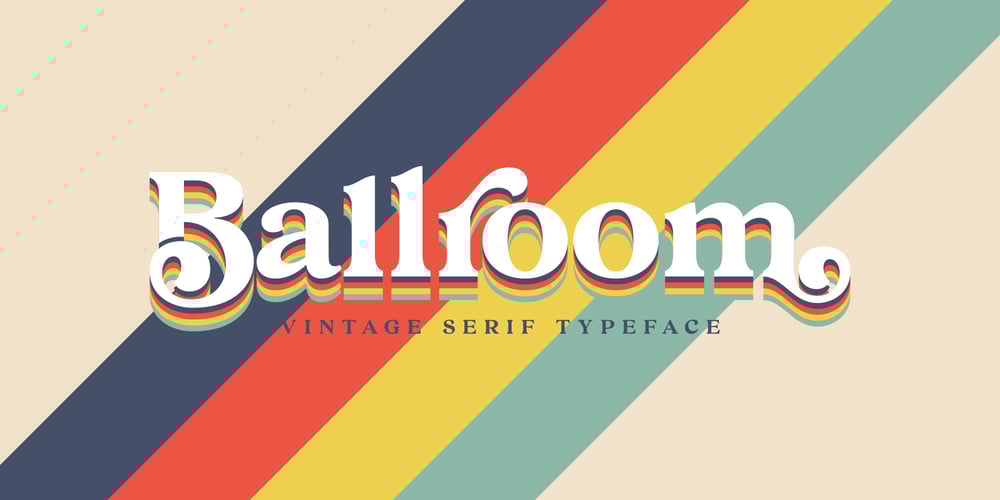
Ballroom Font Family was designed by Muhammad Hastian and published by Hazztype. Ballroom contains 1 styles and family package options. Ballroom is a modern vintage-style serif, drawing inspiration from the 70s era. It is equipped with Swash, Stylistic, and Titling alternates as well as with Standard and Discretionary Ligatures. All these features can be accessed by OpenType controls or straight from character or Glyphs window.Ballroom is a very versatile font, covering a wide range of project types, from bold magazine imagery to wedding invitations, to branding, poster design, logo, and so much more.